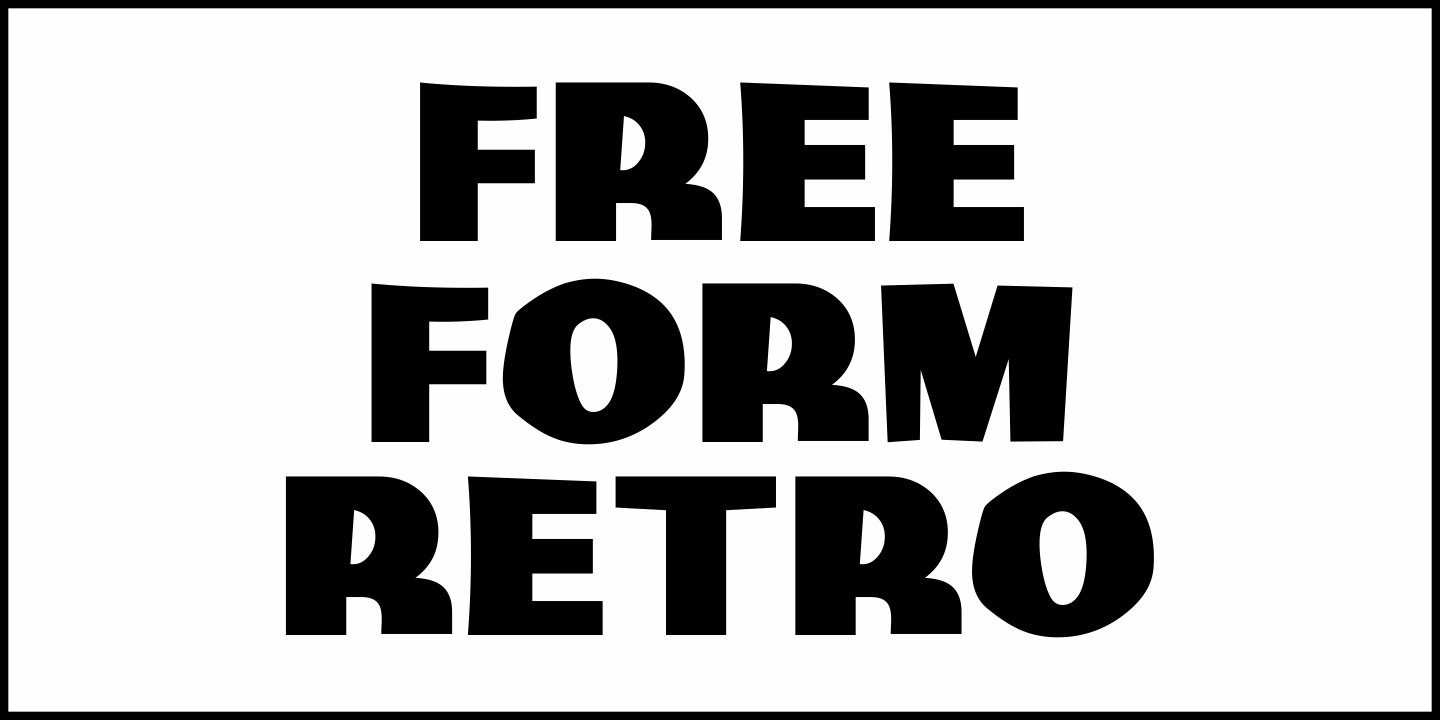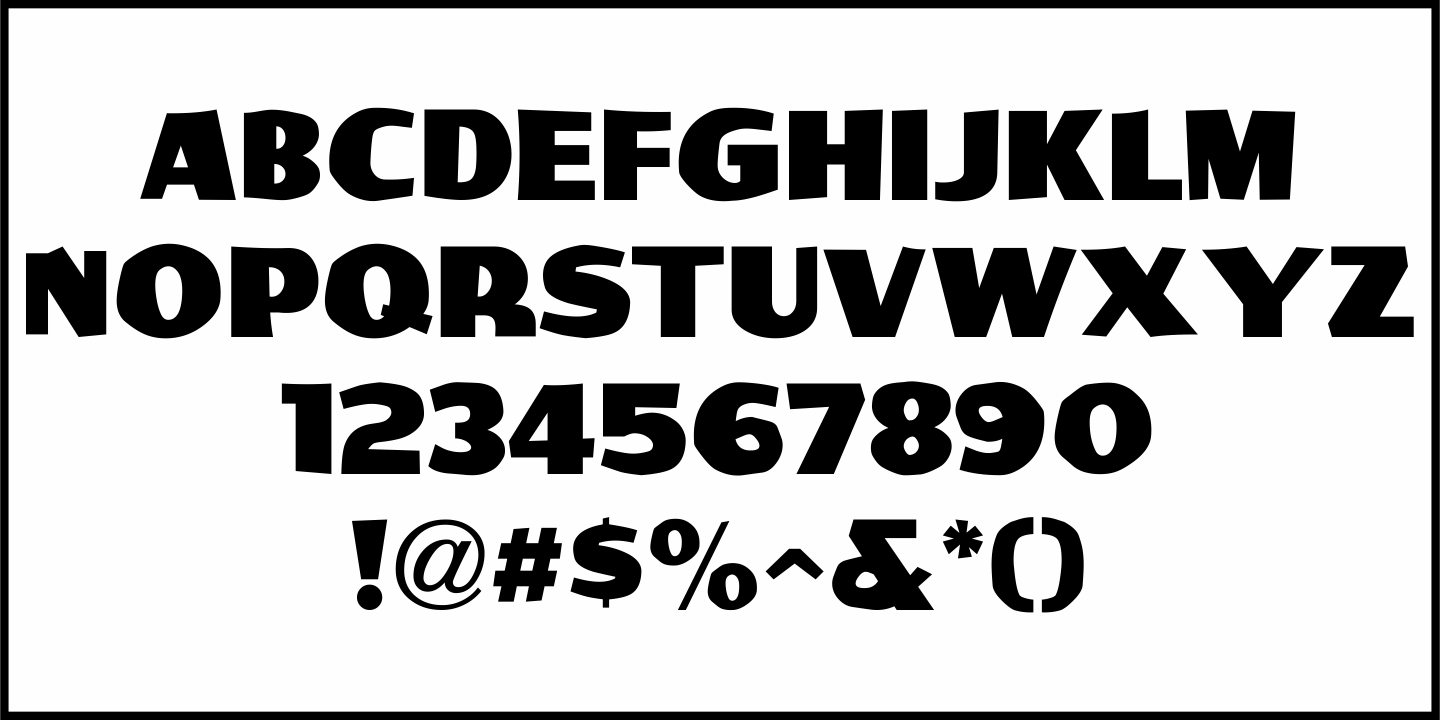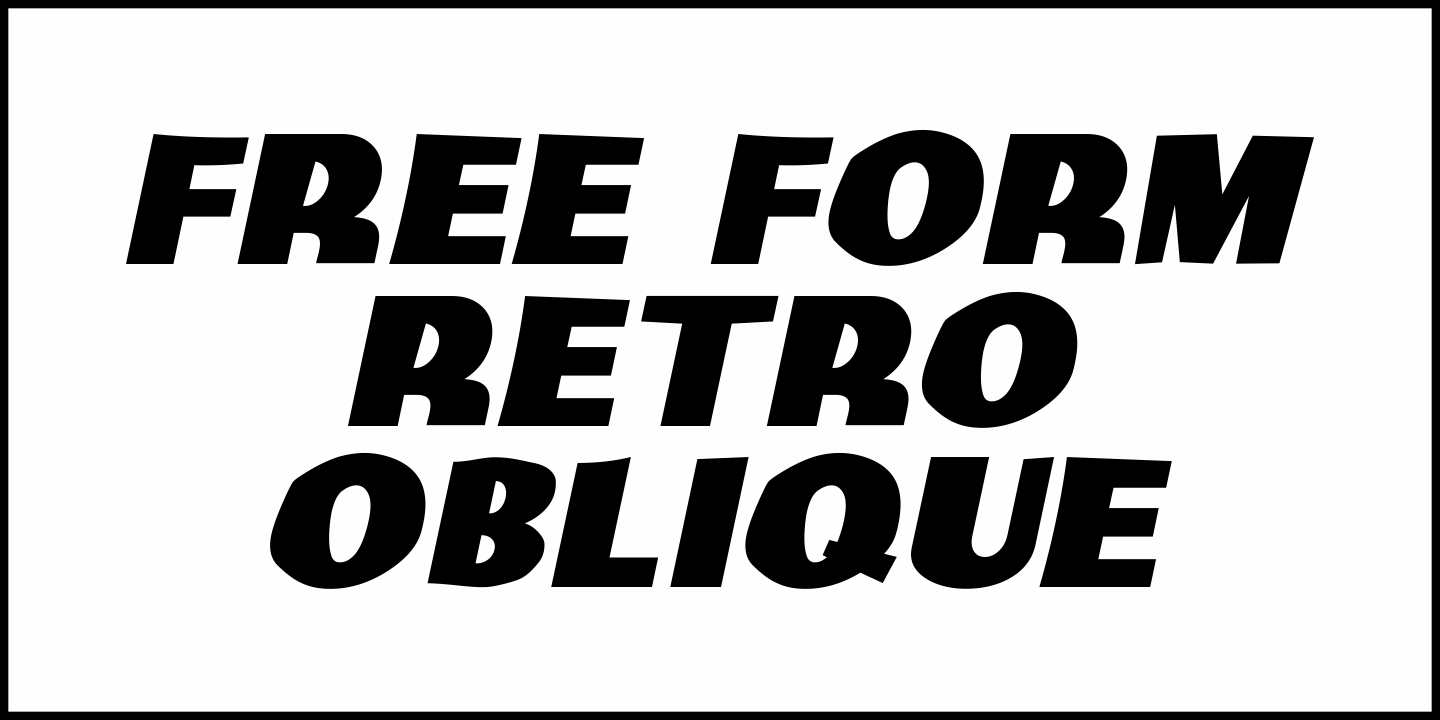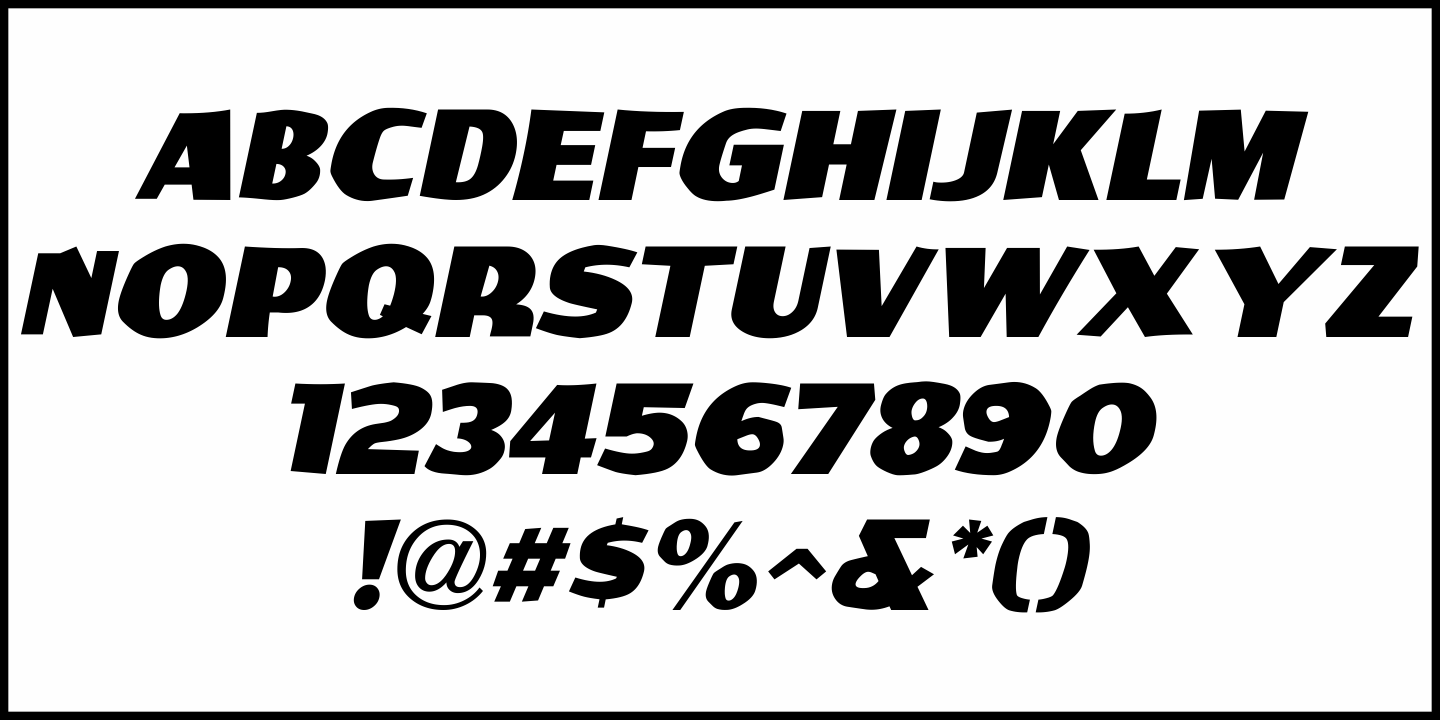
Free Form Retro
Buy NowThe titles and credits from the 1960 French film “Le Passage Du Rhin” (English release title: “Tomorrow is My Turn”)” are hand made in a free form bold alphabet resembling both cut paper and quickly sketched lettering.
This avant garde style inspired the digital type revival, which is available in both regular and oblique versions.